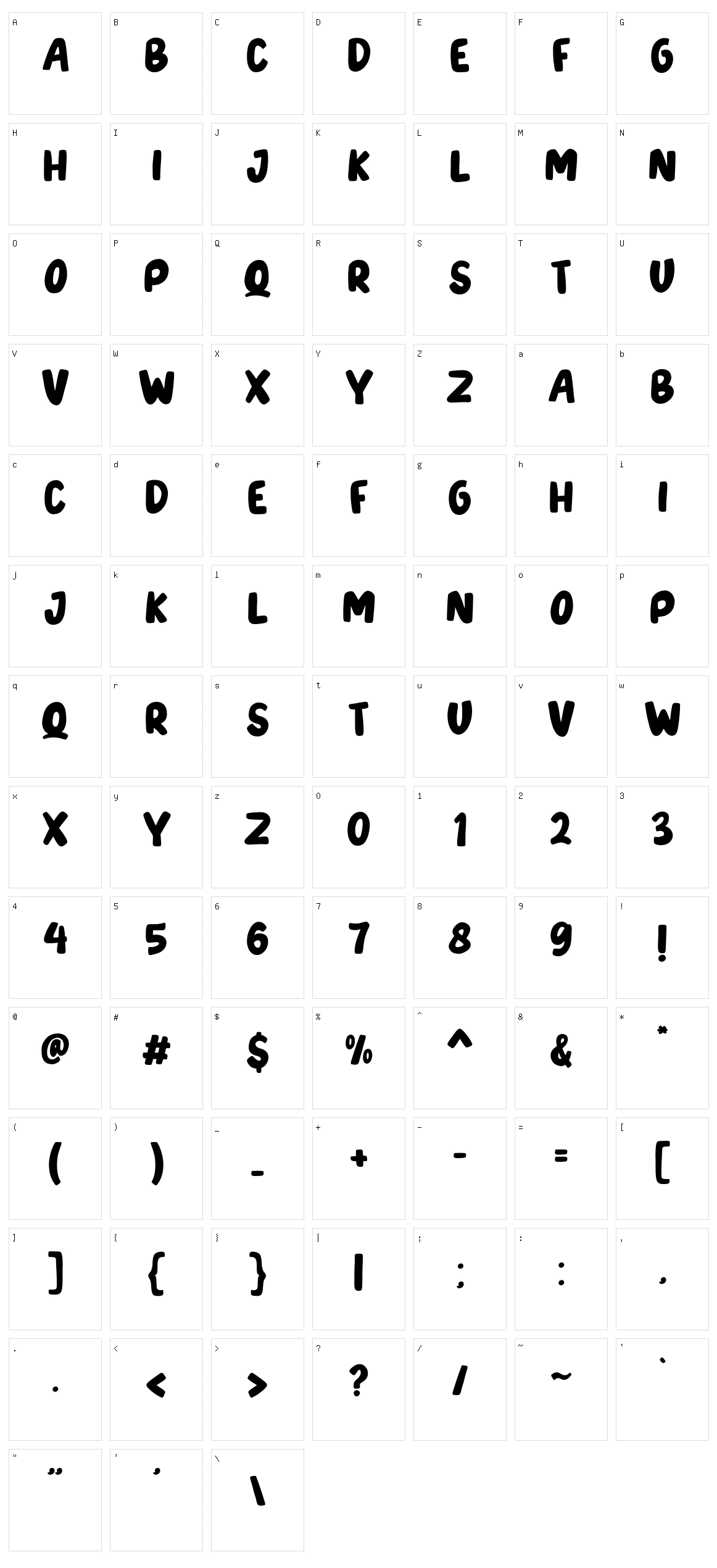
The free font Tonight Friend is carefully designed by Ahwe Project, showcasing a thoughtful balance of creativity and usability and falls under the Cartoon font style. When you download the ZIP file, it contains only 28.44 KB of font files, making it lightweight and quick to download. Please review the license details below to understand permitted usage and distribution rights. If license information is not available, we recommend using this font for personal projects only or contacting the author directly for commercial usage permissions.